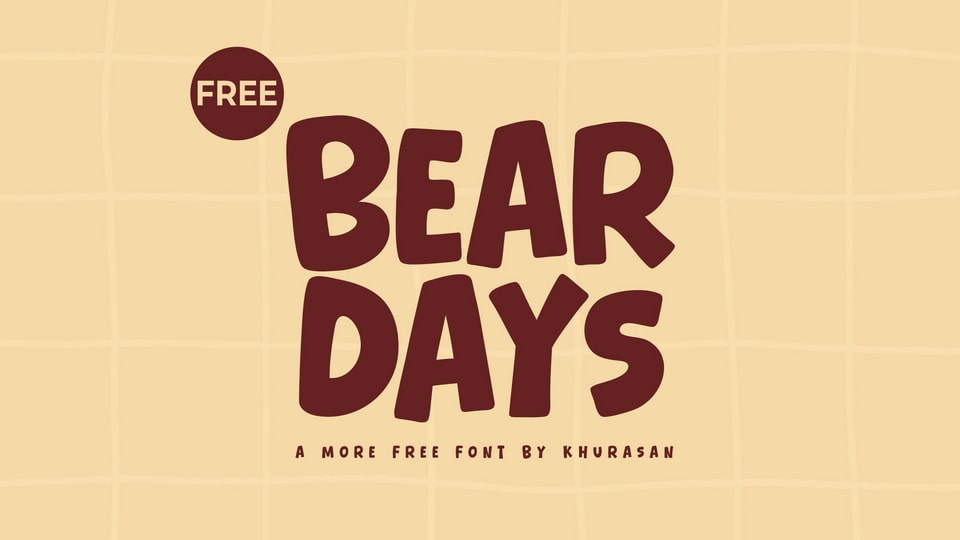
Download Bear Days font, a bold and chunky hand-drawn typeface that radiates warmth and friendliness. Its soft edges and slightly uneven shapes give it a playful, organic look.